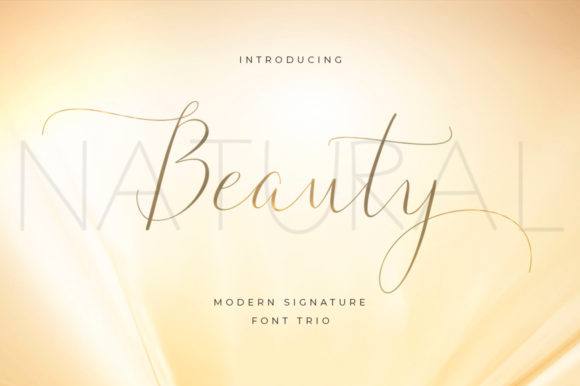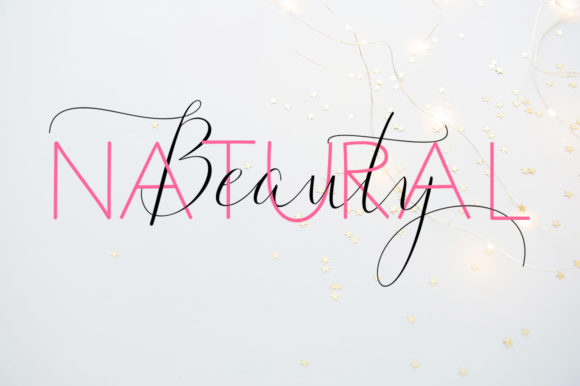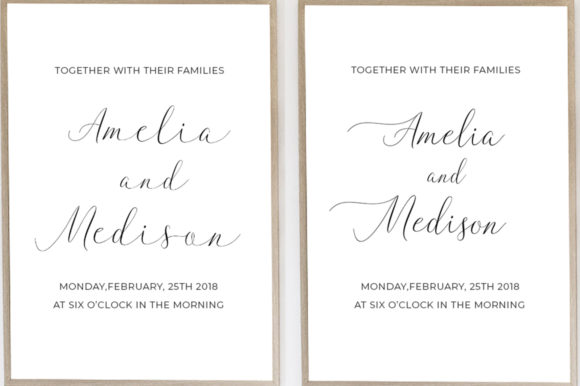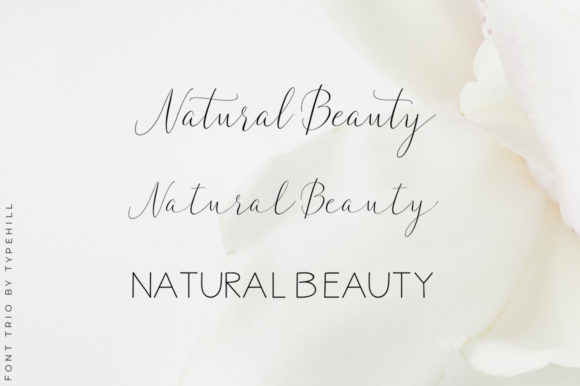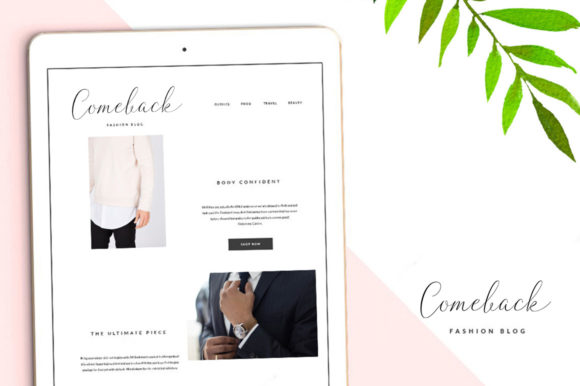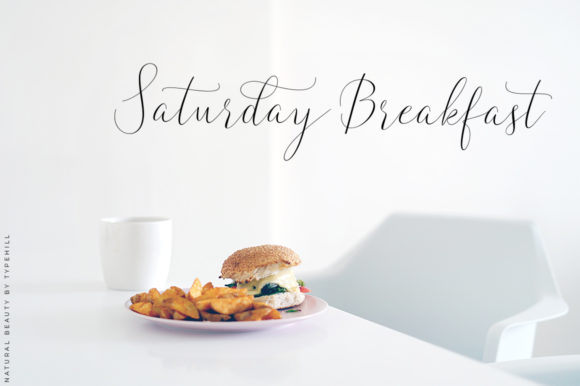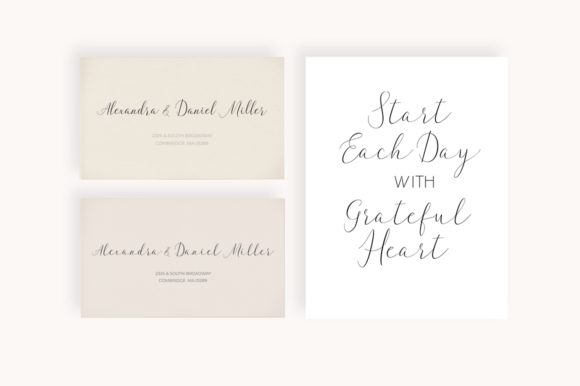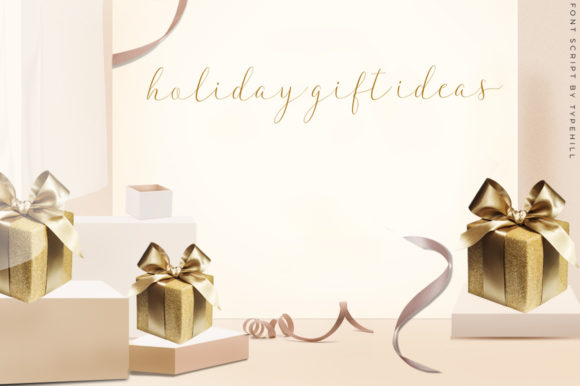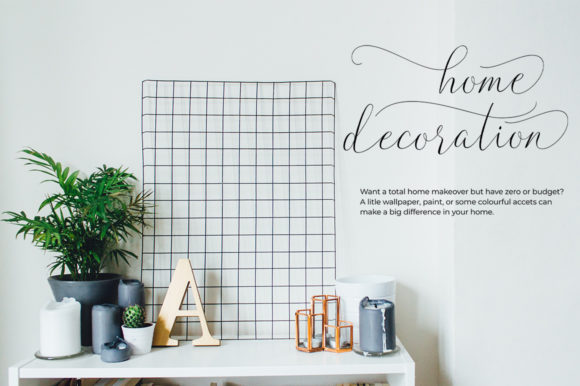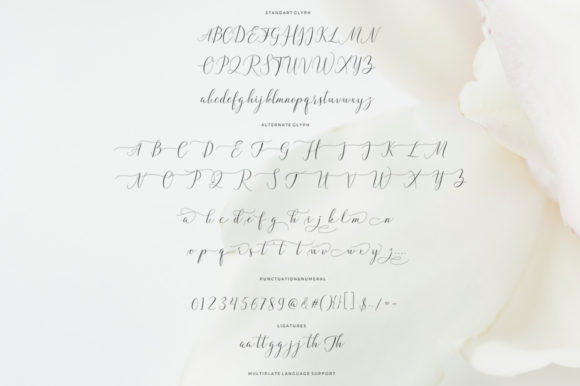
Natural Beauty Duo Font
About Natural Beauty Duo Font
The Natural Beauty is a modern signature trio. It has a feminine and trendy feel, and is perfect for adding an elegant touch to your designs.